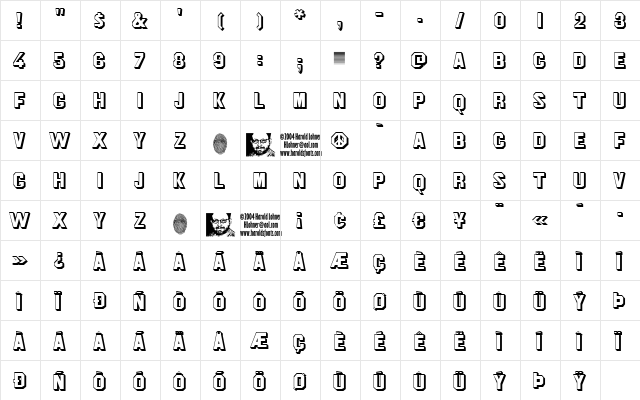
Jim DandyHollow Regular
Design Context for Jim DandyHollow Typeface
Jim DandyHollow is a composed and adaptable typeface that performs quietly and consistently across a wide range of design contexts.